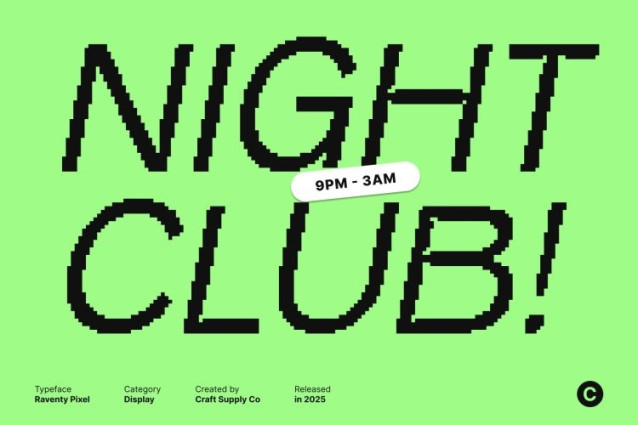
Raventy Pixel Font
Raventy Pixel Font This is a modern sans serif display font designed for clarity, impact, and contemporary style. Its precise, clean shapes give it a professional edge, making it perfect for designers seeking a structured yet visually striking typeface. Ideal for branding, posters, and editorial design, this font conveys confidence, refinement, and attention to detail in every character.
Inktrap Details for Character and Depth
The inktrap features add subtle intricacy and sophistication to the font’s bold structure. These small but impactful details enhance readability while giving the typeface a distinctive personality. The combination of clean forms and inktrap accents makes this font versatile for both large-scale display use and detailed design projects.
Pixel Style for a Digital, Eye-Catching Twist
Enhanced with a pixel texture, this font gains a modern, digital flair that makes each character pop. The pixel effect adds a touch of contemporary creativity, giving the font an engaging, eye-catching aesthetic. This fusion of inktrap elegance and pixelated modernity ensures your designs feel both structured and innovative.
Perfect for Branding, Posters, and Editorial Design
This font excels in projects that demand a balance of structure and artistic individuality. Its precise forms, inktrap sophistication, and pixel-enhanced styling make it ideal for branding campaigns, posters, editorial layouts, and other creative applications.